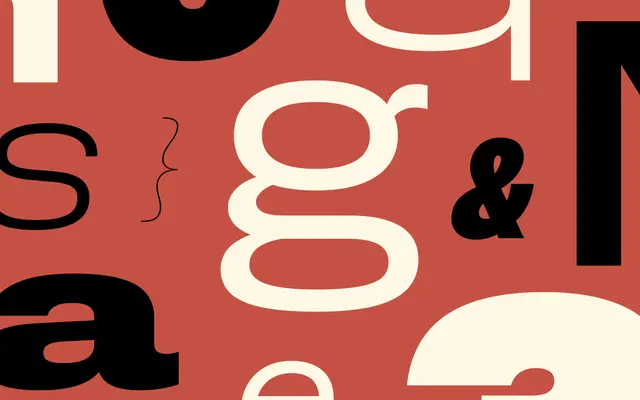
Bankside Sans
Dalton Maag · Paul Troppmair, Bruno Mello · 2023
An early British grotesque reinterpreted for modern use, with nine widths from UltraCondensed to UltraExtended on a Weight, Width and Italic variable font.
Dalton Maag's Bankside Sans is a grotesque sans by Paul Troppmair and Bruno Mello, designed and developed 2023. The variable font carries Weight, Width and Italic axes, running Hairline to Black across nine widths from UltraCondensed to UltraExtended with matching italics. It pairs with Bankside Serif and covers Latin with support for over 790 languages.
Dalton Maag describes Bankside Sans as an early British grotesque sans typeface reinterpreted for modern users, with clear classic letter shapes and extreme widths for impact.